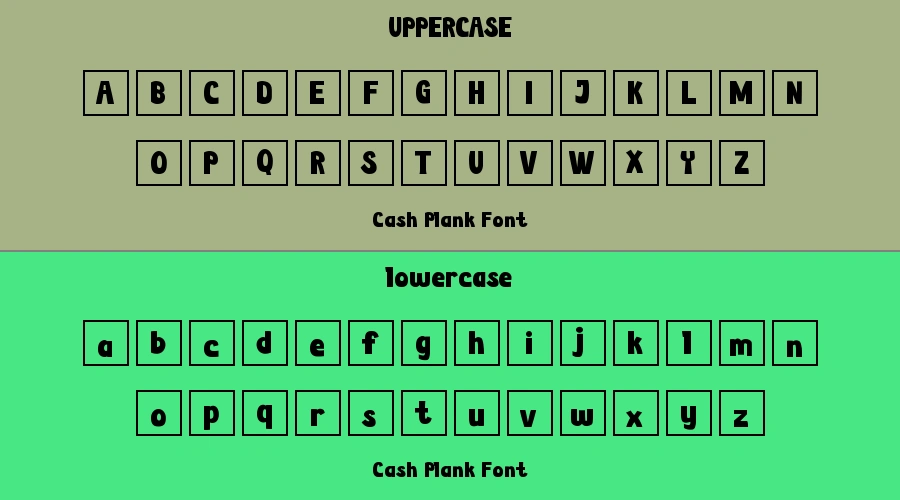
About Cash Plank Font
Designed with precision, Cash Plank Font merges humanist proportions with emotional connection in every character. This versatility makes it particularly effective for ceremonial invitations, where integrity and cultural authenticity directly impact communication quality. Each letterform demonstrates meticulous craftsmanship.
Technical excellence shines through elements like pen-inspired details and historical alternates, enhancing typographic versatility. In advertisements settings, Cash Plank Font proves its worth through superior digital conversion. The thoughtful execution of stem weight and contemporary relevance ensures professional results.